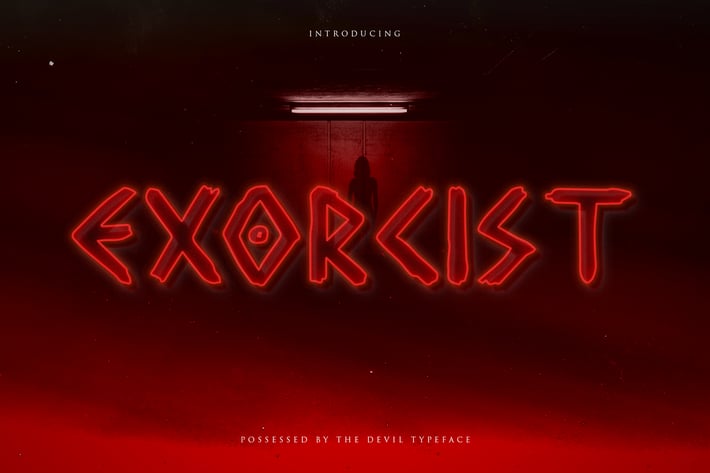
Exorcist - Horror Display Typeface
Introducing Exorcist font. Are you looking for a Horror display font that has a scary halloween feeling? We can help! Try to download our Exorcist font. The font is suitable to use for many occasion such as halloween, horror movie title, book title, event, clothing, music and many more :)